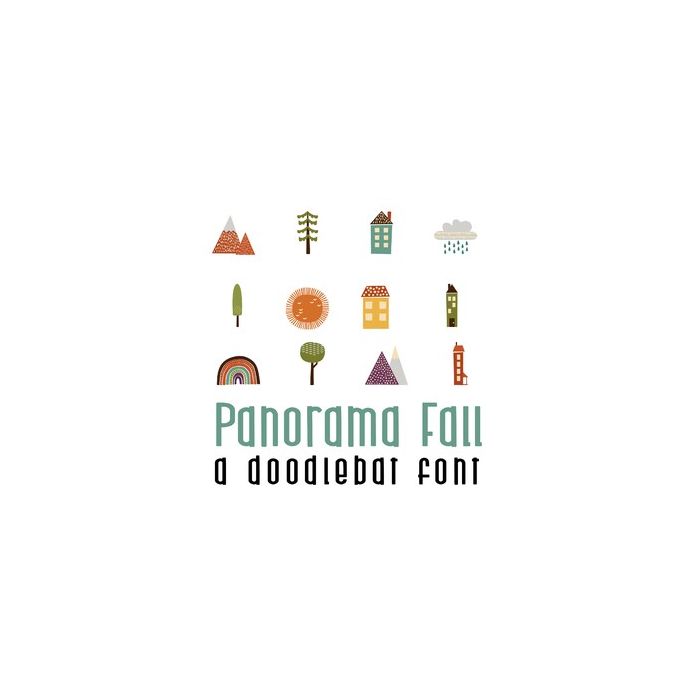
This adorable full-color doodlebat font features homes, trees, mountains and rainbows in beautiful fall colors. Perfect for cards, crafts, gifts, decor, scrapbook pages, planner stickers, and more!